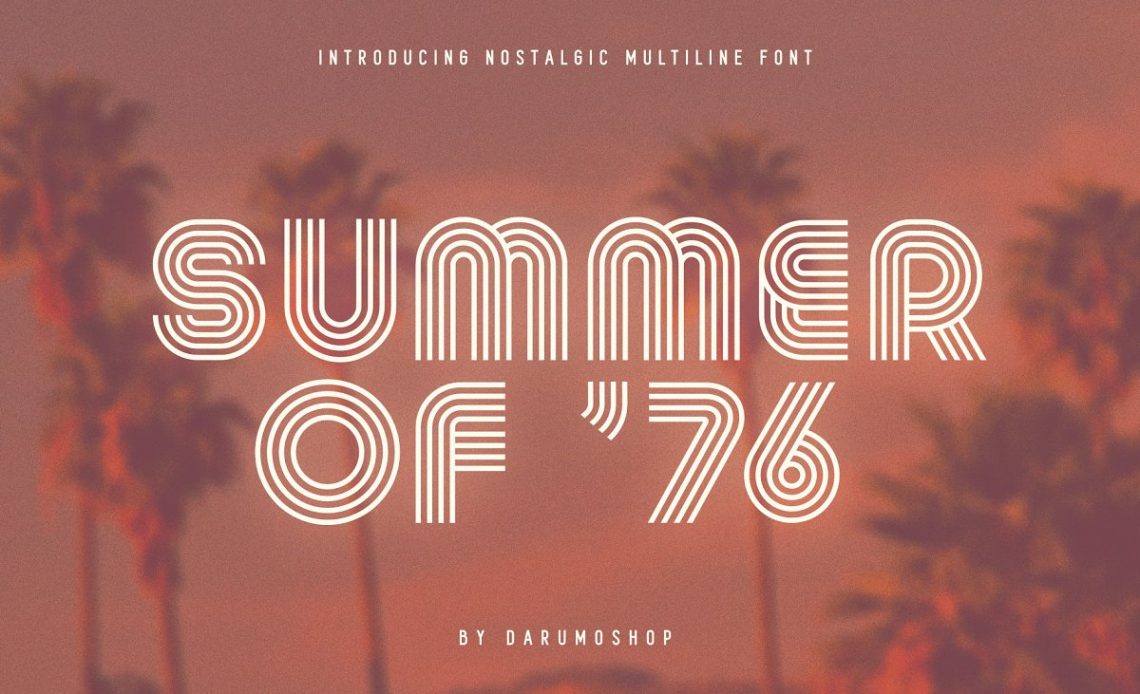
Looking for a font that will give your designs a touch of nostalgia? Look no further than Summer of '76, a versatile and eye-catching multi-line font from Darumo Shop. This font was inspired by the 70s aesthetic, making it the perfect choice for anyone looking to add a retro feel to their designs.
Whether you're working on a header or a text block, Summer of '76 is the perfect solution. With its unique multi-line design, this font is sure to capture the attention of anyone who sees it. And with two font styles to choose from - multi-line and solid - you can customize your designs to suit your specific needs.
But Summer of '76 isn't just stylish - it's also incredibly functional. This font is designed to be easy to read, making it a great choice for a wide range of projects. And with its keyword-rich and captivating summary, you can be sure that your designs will stand out from the crowd.